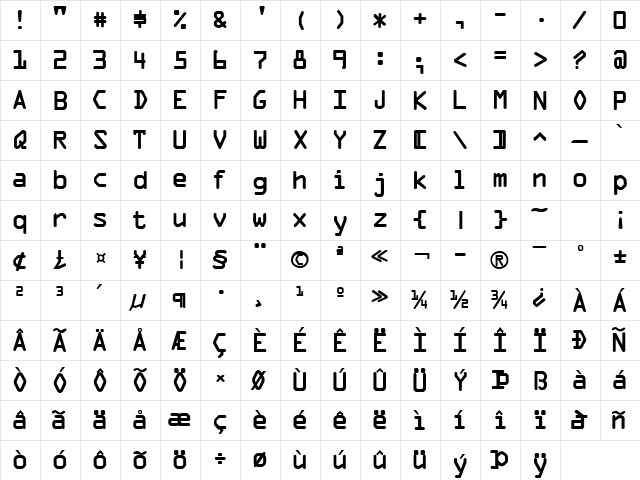
Optical C Bold
Design Context for Optical C Typeface
Optical C offers clean, dependable letterforms without strong stylistic allegiance, making it a practical choice for designers who need flexibility. Its bold stroke weight gives it real presence on the page.